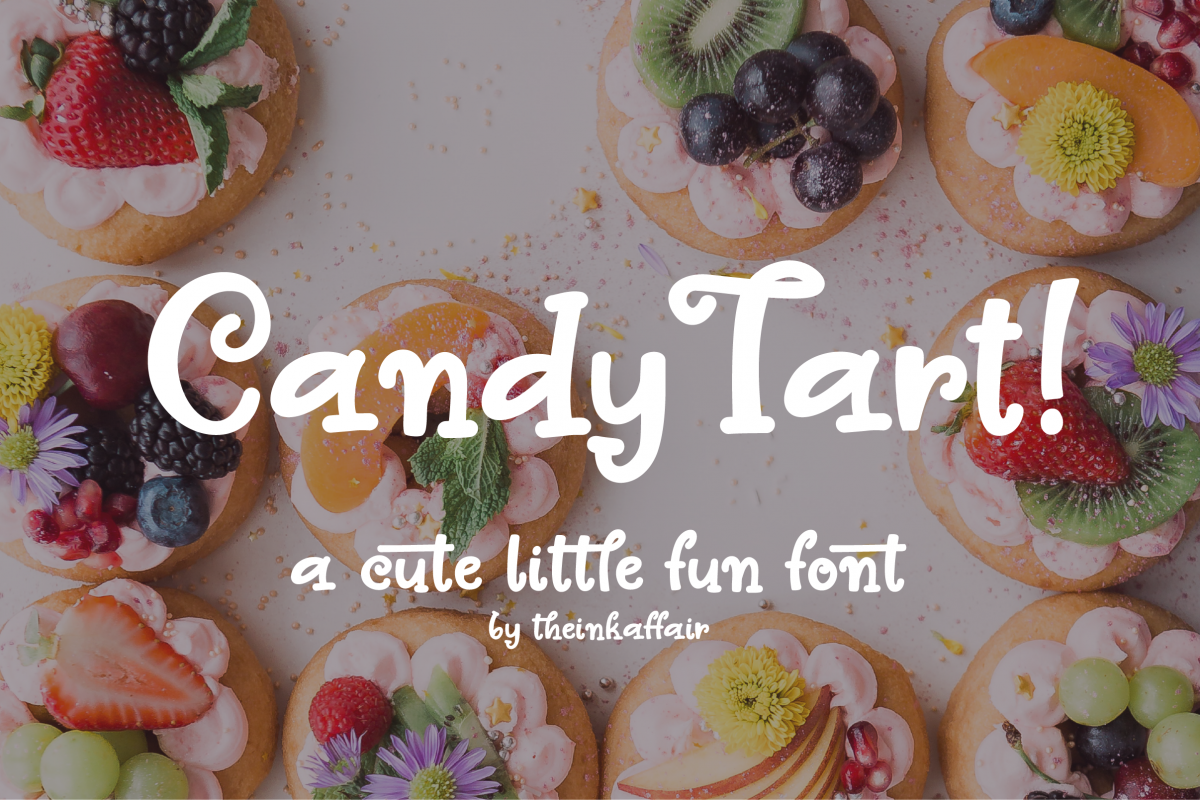
Introducing, Candy Tart, a lovely little fun font that is perfect for invitations, stationery, quotes, apparel design and so much more!
Candy Tart comes with a set of uppercase letters, lowercase letters, numbers and punctuations and a ton of ligatures to make your
designs even more fun!